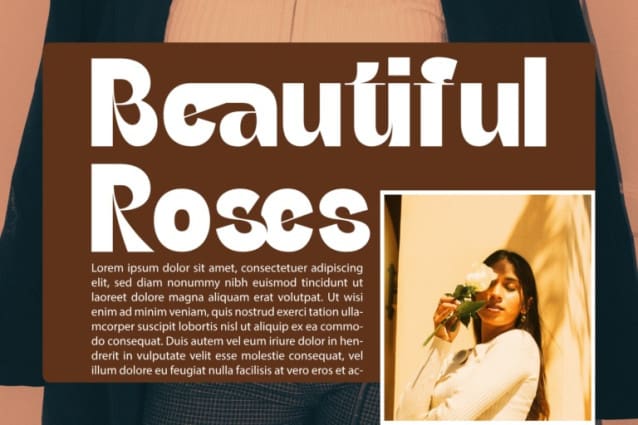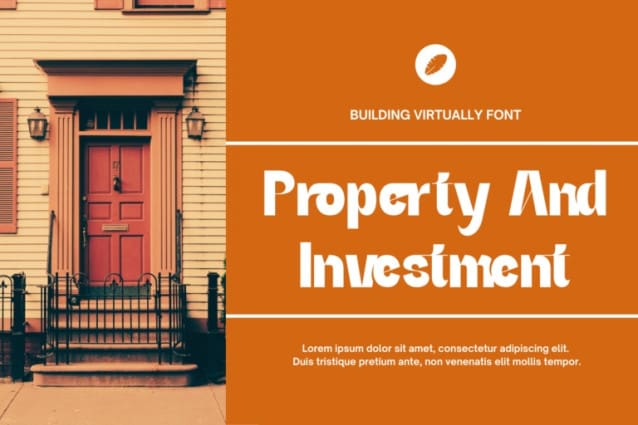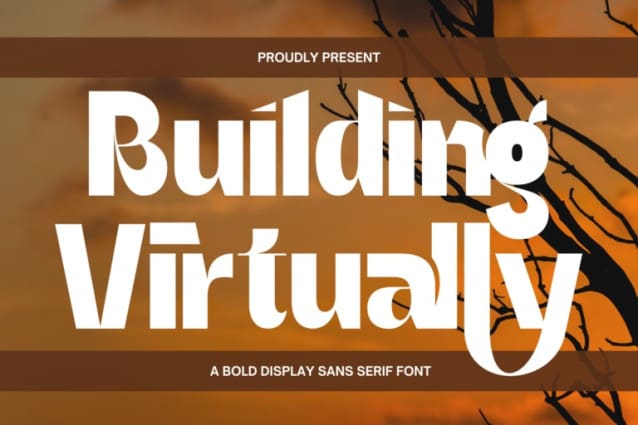
Building Virtually Font
Building Virtually Font is a modern sans-serif font with 2 weights, defined by its clean lines and balanced proportions that exude simplicity and elegance. Ideal for branding, editorial design, and digital interfaces, it’s delivers a professional and versatile aesthetic suitable for a wide range of projects. It’s just experimental enough to be unique but classic enough to versatile from body copy to word-marks. Great for mastheads, pull quotes and fashion editorials.
Building Virtually was built with OpenType features and includes 100 ligatures, alternate, numbers, punctuation, and it also supports other languages.